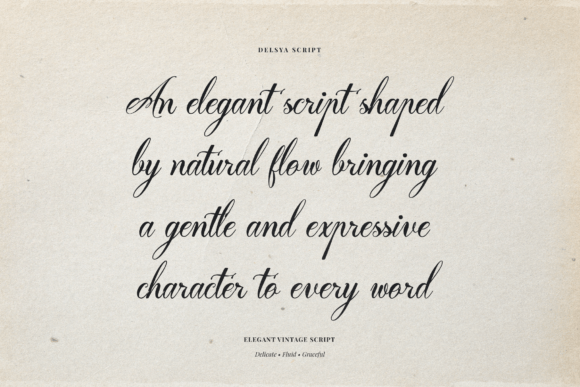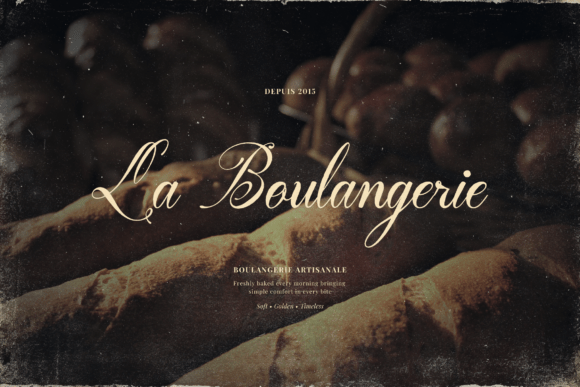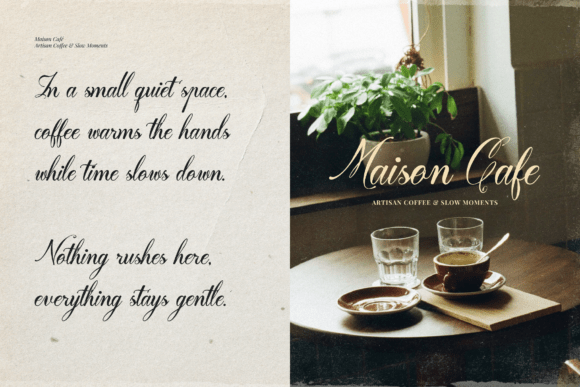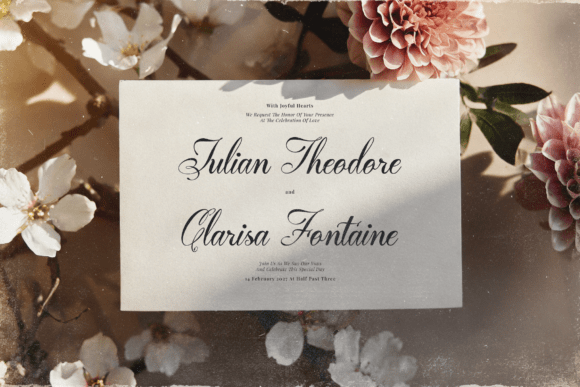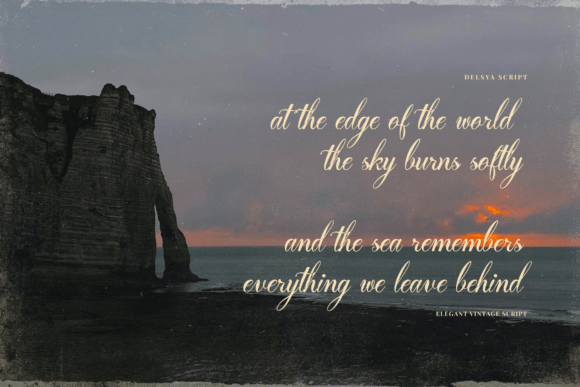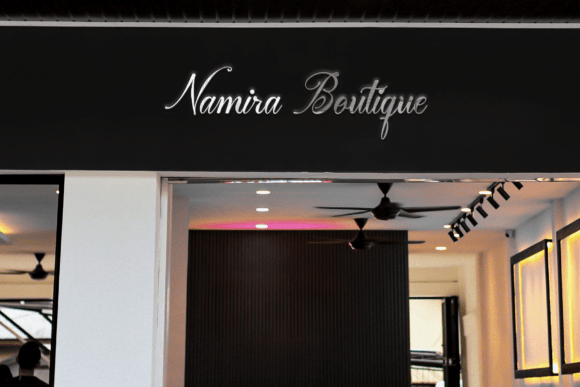
Introducing Delsya Script: A Timeless Elegance for Your Digital Canvas
Are you looking for a font that can transport your digital designs to an era of pure poetic nostalgia? Look no further than Delsya Script, an elegant vintage script typeface that embodies the fluid, rhythmic motions of traditional copperplate calligraphy. With its sweeping capital swashes and graceful, elongated terminal ascenders, Delsya Script is the perfect choice for designers and crafters seeking to add a touch of heritage luxury and timeless cinematic charm to their work.
The Characteristics of Delsya Script
Delsya Script boasts a high-contrast rhythm between its confident downstrokes and fine, whisper-thin horizontal connections. This distinctive feature instills an immediate look of sophistication and elegance, making it ideal for high-end designs. The font’s sweeping capital swashes and elongated terminal ascenders add a touch of drama and flair, while its fluid, rhythmic motions evoke the feeling of bespoke handwriting.
Endless Design Possibilities with Delsya Script
One of the standout features of Delsya Script is its versatility. This extraordinary font allows you to effortlessly design custom, interlocking layouts that mimic the look and feel of handwriting. Whether you’re creating wedding invitations, winery labels, boutique fashion logos, romantic storytelling titles, or luxury packaging designs, Delsya Script serves as an exceptional branding centerpiece that is sure to leave a lasting impression.
Delsya Script is a dream come true for designers and crafters seeking to add a touch of elegance and sophistication to their work. With its wide range of design possibilities, this font is perfect for:
- Wedding Invitations: Create beautiful, one-of-a-kind wedding invitations that exude luxury and romance.
- Winery Labels: Add a touch of sophistication to your winery labels and make your products stand out.
- Boutique Fashion Logos: Create stunning logos that reflect the elegance and refinement of your fashion brand.
- Romantic Storytelling Titles: Bring your stories to life with beautiful, eye-catching titles that capture the essence of your narrative.
- Luxury Packaging Designs: Elevate your packaging designs to new heights with Delsya Script’s elegant, high-end aesthetic.
Why Choose Delsya Script?
So why choose Delsya Script over other fonts? Here are just a few reasons:
- Unique and Elegant: Delsya Script’s distinctive features and elegant aesthetic make it a standout in the world of typography.
- Versatile: This font can be used for a wide range of design projects, from wedding invitations to luxury packaging.
- Easy to Use: Delsya Script is incredibly easy to use, allowing you to create stunning designs with minimal effort.
- High-Quality: This font is crafted with the highest level of attention to detail, ensuring a crisp, clear appearance in any design.
In conclusion, Delsya Script is a truly exceptional font that is sure to transport your digital canvas to an era of pure poetic nostalgia. With its elegant vintage aesthetic, sweeping capital swashes, and high-contrast rhythm, this font is perfect for designers and crafters seeking to add a touch of heritage luxury and timeless cinematic charm to their work. Whether you’re creating wedding invitations, winery labels, or luxury packaging designs, Delsya Script is the perfect choice for anyone seeking to create stunning, high-end designs.